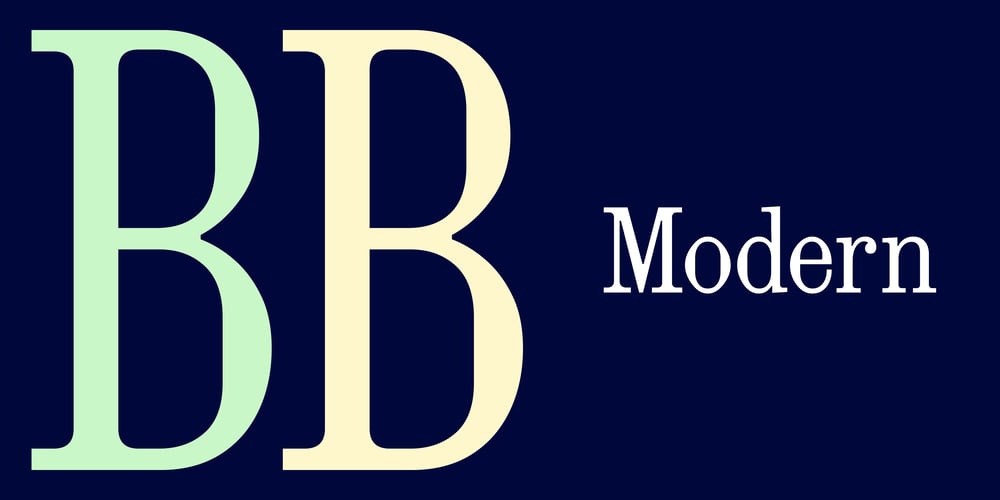
BB Modern Font Family was designed by Colophon Foundry and published by Colophon Foundry. BB Modern contains 5 styles and family package options. BB Modern is both a reference and a shortened ode to its original source of a Barnhardt Bros & Spindlers’ 1868 specimen catalog. This original source, an ungainly, super condensed Scotch Roman, was the first point of reference for BB’s most condensed width.Its unique angular diamond round forms, such as «O», are overly exaggerated and amplified throughout the widths. Indented notched ink-traps in forms such as «M» and «n» apply a contemporary lens to the type family.Variable Font Technology allowed the merging of the XX (extra extra) Condensed and Modern Roman to create a flexible type family that can be utilized as both a Display and Text typeface, traversing through the family’s widths from the Proportional Regular to XX (extra extra) Condensed style.